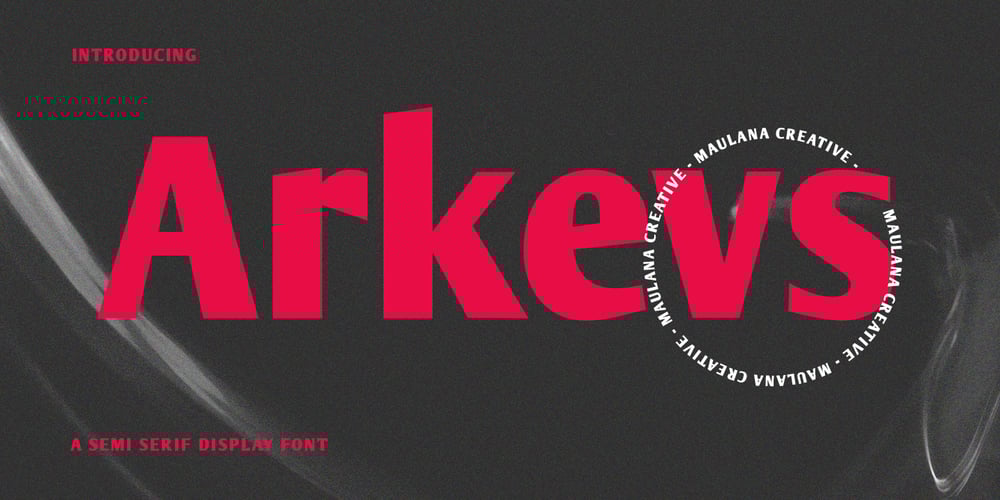
MC Arkevs Font Family was designed by Gilang Maulana and published by Maulana Creative. MC Arkevs contains 1 styles and family package options. Arkevs is a modern Decorative contrast semi serif Display font. Bold stroke, fun character with a bit of ligatures and alternates. To give you an extra creative work. Arkevs font support multilingual more than 100+ language. This font is good for logo design, Social media, Movie Titles, Books Titles, a short text even a long text letter and good for your secondary text font with script or serif. Make a stunning work with Arkevs font. Cheers, Maulana Creative